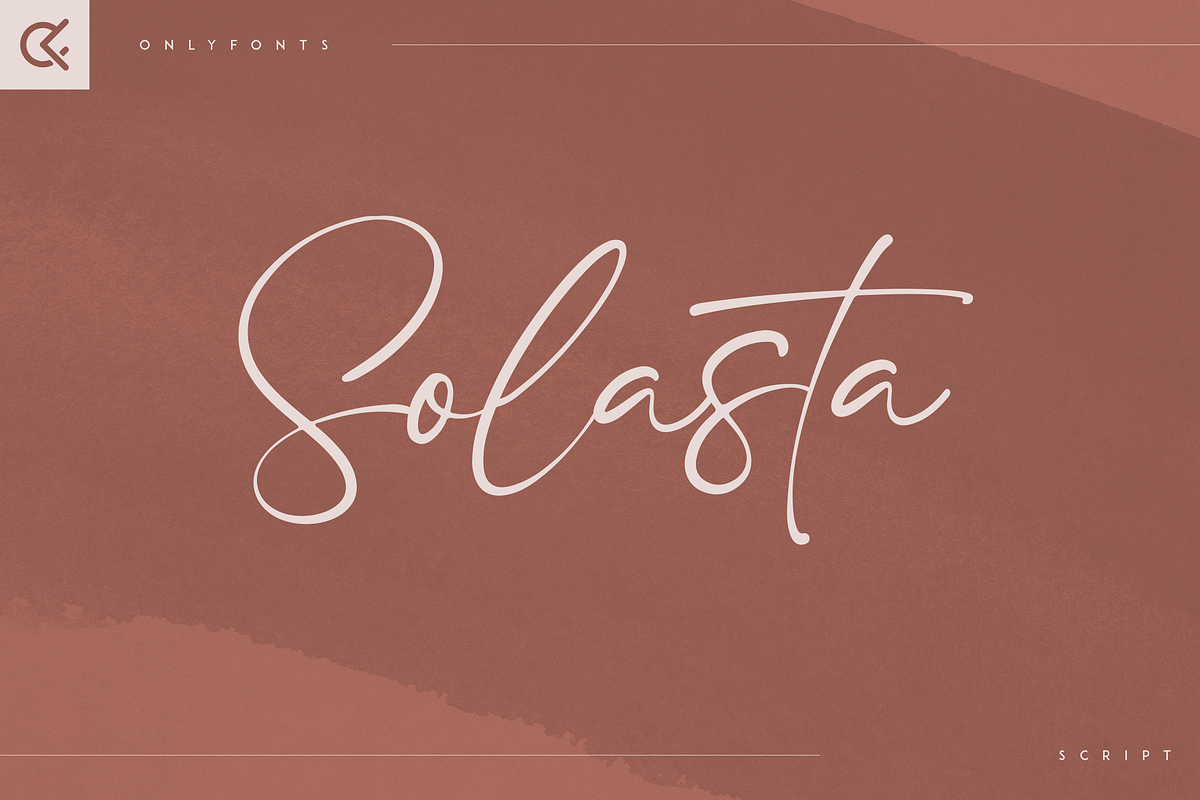
Solasta - organic script font Free Download
Solasta - Organic Script Font Free Download
The Solasta - Organic Script Font Free Download is a natural and elegant script typeface that brings a hand-crafted, flowing style to your designs. Featuring smooth curves and an organic, handwritten feel, this font is perfect for creating logos, branding, invitations, posters, and other creative projects that require a personal, artistic touch. Whether you're designing for a boutique, eco-friendly brand, or a personal project, Solasta adds a fresh and refined vibe to your work.
Solasta - Organic Script Font Free Download is ideal for designers seeking a refined, flowing script that blends elegance with a natural, handwritten feel. Perfect for branding, invitations, or creative content, this font will elevate your designs with its beautiful, organic charm. Download it today and bring a fresh, artistic touch to your creative projects with Solasta!